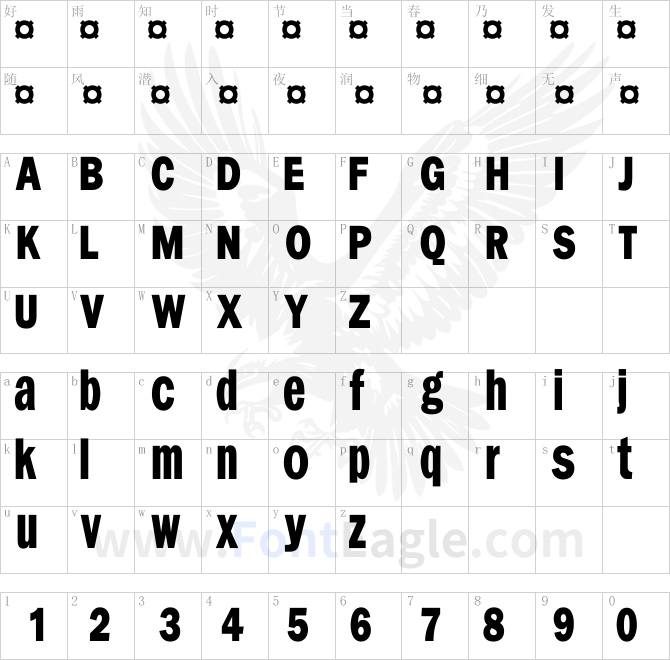
- Font name:FranklySpokenTwo
- Font Subfamily ID:FranklySpokenTwo
- Font Full Name:FranklySpokenTwo
- Font Version:1.0 1996
- Postscript:FranklySpokenTwo
- Font Copyright:Copyright 1994 Alphabets, Inc. Manfred Klein (1996)